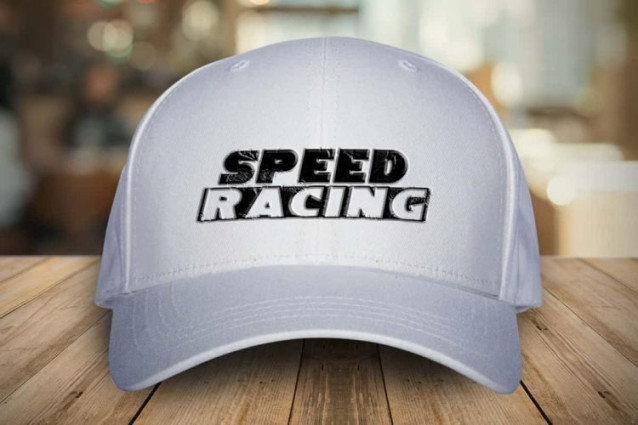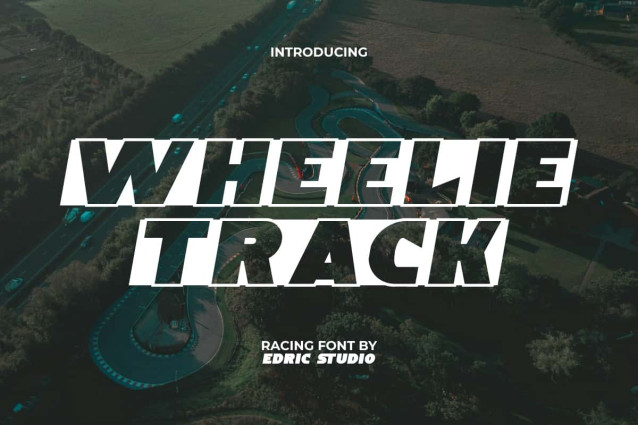
Wheelie Track Font
Wheelie Track Font is a modern display font with a racing and sports theme. Its bold shapes, whether square or not and italicized make this font stand out because of its thickness and looks strong and very sporty. It is so versatile that it works in both large and small sizes. This font is perfect for banners, blogs, brochure, key ring design, logos, mockup, poster, printed materials, product packaging, signboard, template, title, website, and more.
Wheelie Track Font includes a complete set of ALL CAPS for both Uppercase and Lowercase letters, Numbers, Punctuation, and Symbols. It offers its own uniqueness with letter outlines in a box that when put together creates a creative typographic harmony reminiscent of highlighters. Explore its endless variations and feel the satisfying sensation when you type using this font! Perfect for accessories and merchandise, apparel, automotive, coffee shop, fashion, graphic design, racing games, sports events, transport advertising, vehicle workshops, and more.